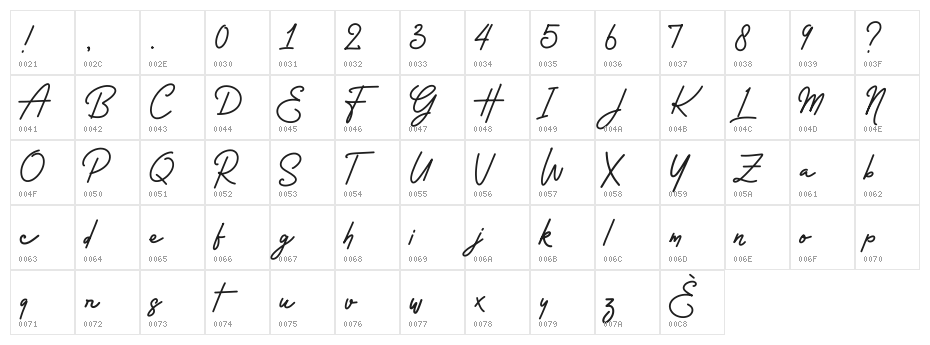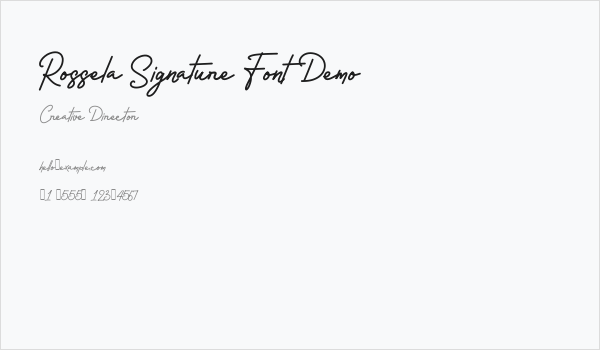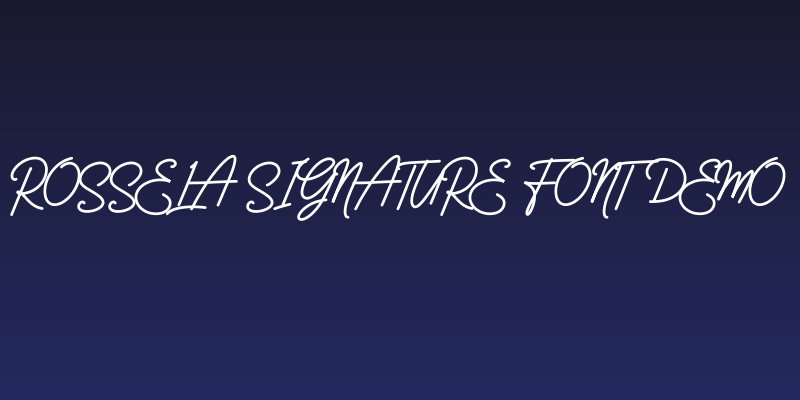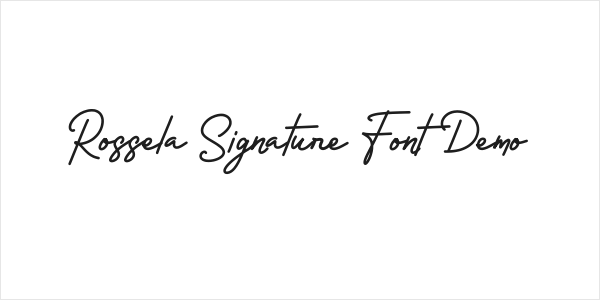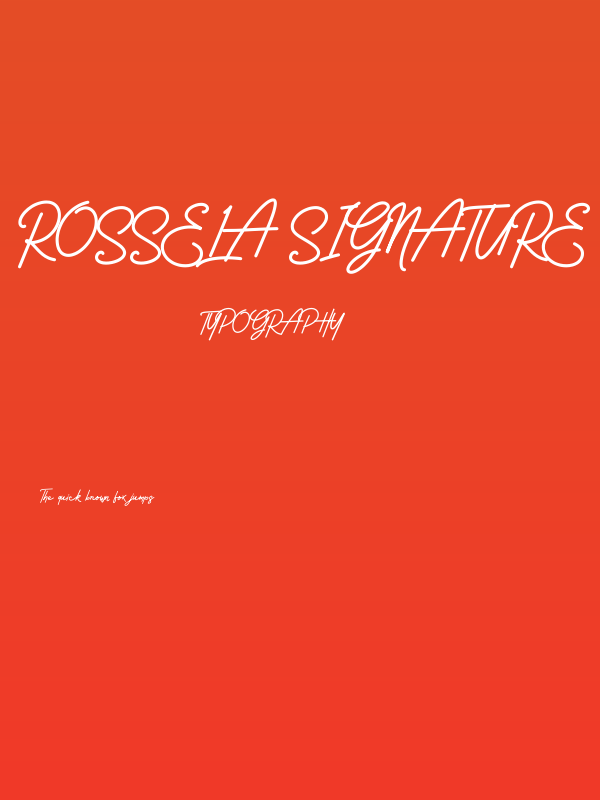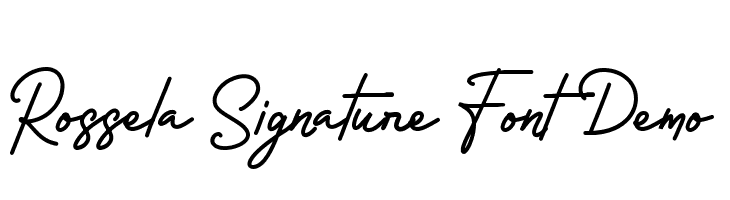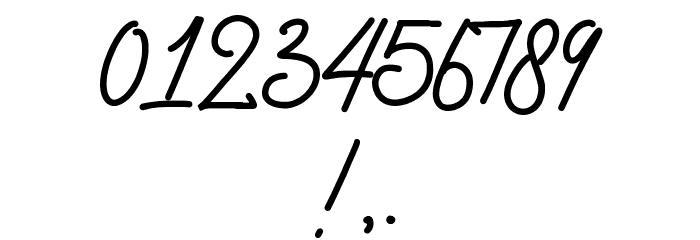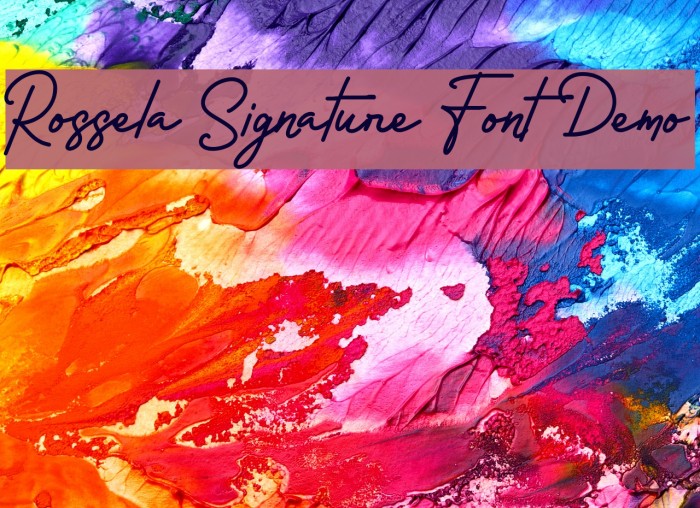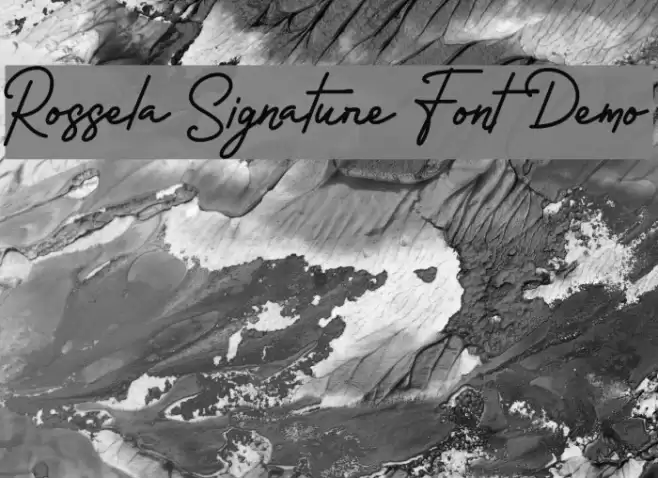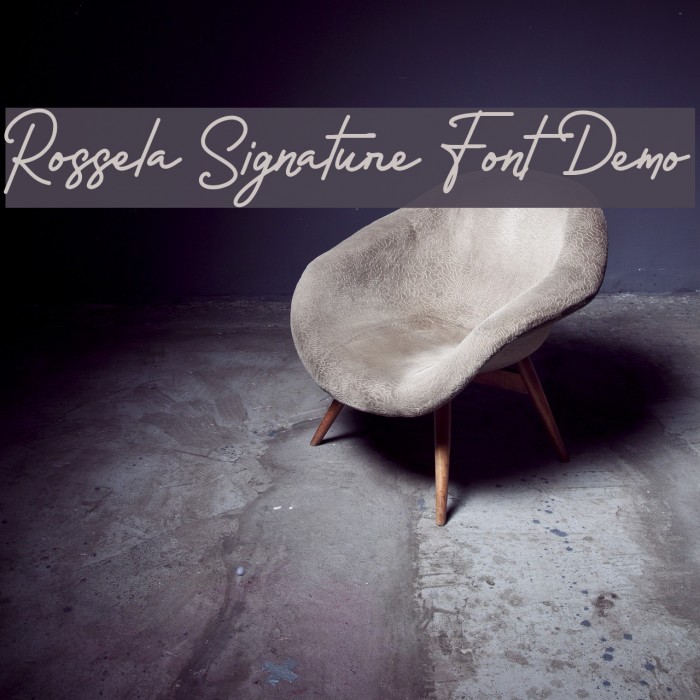
Rossela Signature Font Demo Font
Rossela Signature Font Demo Description
This font exudes a sense of elegance and fluidity, characterized by its cursive, handwritten style. The letters are interconnected with smooth, flowing strokes, giving it a personal and artistic touch. The uppercase letters are slightly more elaborate, with some featuring unique flourishes that add to the overall sophistication. The lowercase letters maintain a consistent style, ensuring readability while preserving the font's artistic flair. The numerals are clear and distinct, matching the style of the alphabet. Special characters are included, maintaining the cohesive design. This font is perfect for projects that require a personal, elegant touch, such as invitations, branding, or artistic endeavors.
| Overall Style | Elegant, Artistic |
| Use Case | Logos, Invitations, Artistic projects |
| Proposed Projects | Ideal for wedding invitations, personal branding, artistic projects, and elegant stationery. |